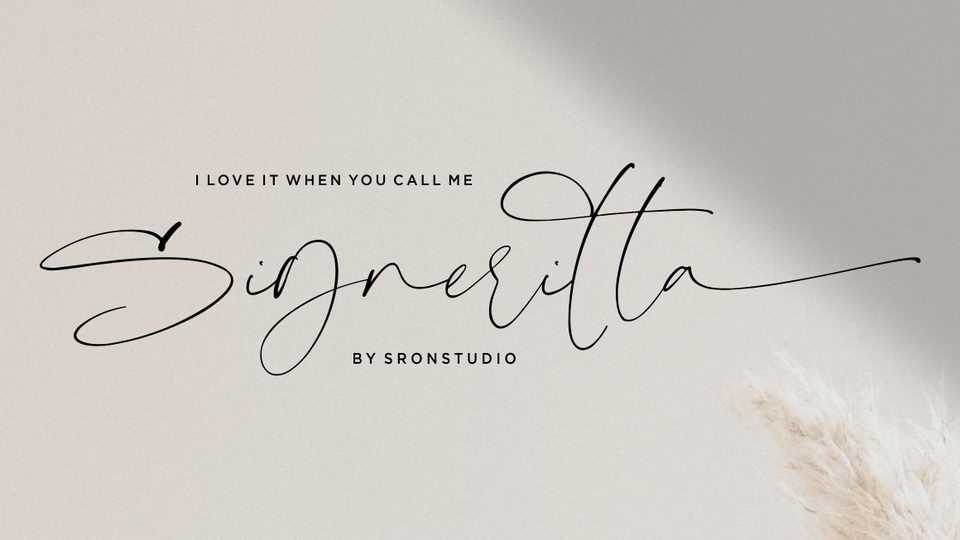
Download Signeritta font a luxury signature script. Signeritta is perfect for branding, invitation, stationery, wedding designs, social media posts, advertisements, watermark, special events or anything.
Designer: Sronstudio